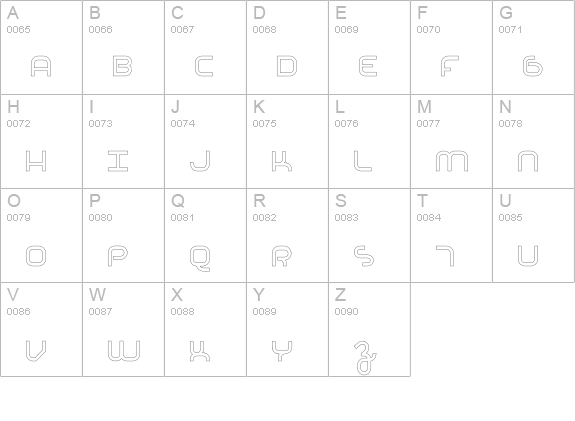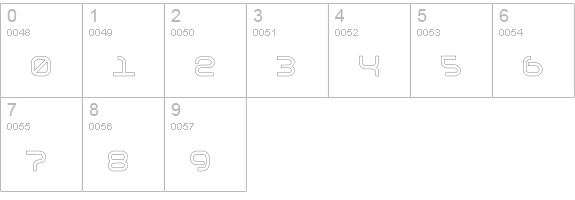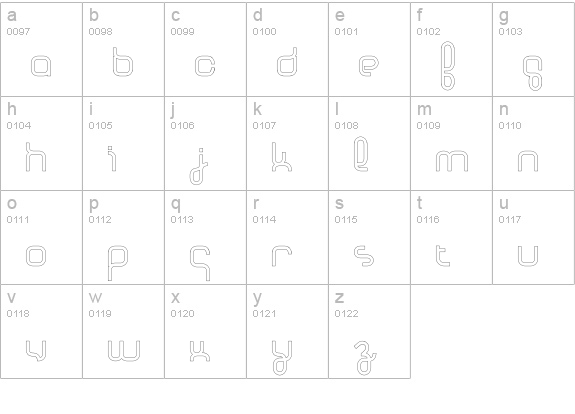
Basis-MediumOutline is a modern and versatile font that strikes the perfect balance between elegance and readability. Its clean lines and rounded edges make it ideal for a wide range of design projects, from branding to editorial design. This font exudes a sense of sophistication and professionalism while maintaining a touch of playfulness. The best part? Basis-MediumOutline is available for free download at FontsMarket.com. Whether you're a seasoned designer or just starting out, this font is a valuable addition to your toolkit. Embrace the creative possibilities with Basis-MediumOutline and elevate your designs to new heights.